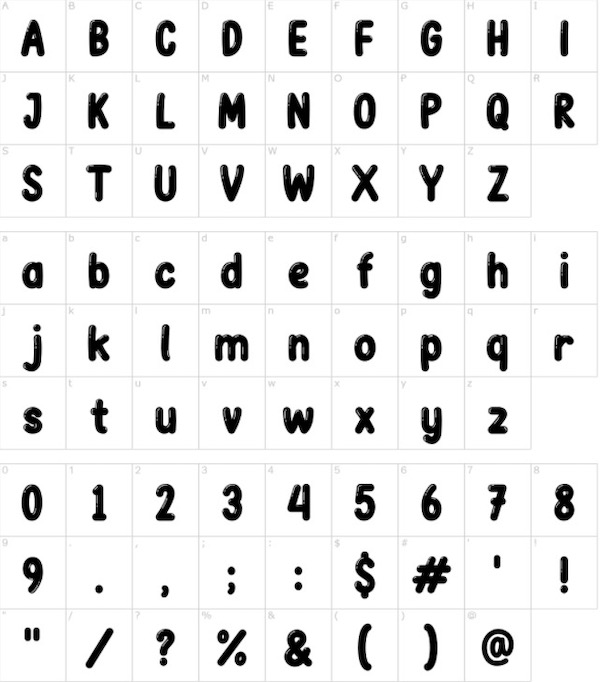
Bubble Bobble Font was very inspired by classic and romantic vintage styles. And you will be seeing this great font a lot more in the design world.
Bubble Bobble Cartoon Font
Font family: Bubble Bobble Font
Full font name: Bubble Bobble Font
Designer Name: Almarkhatype Studio